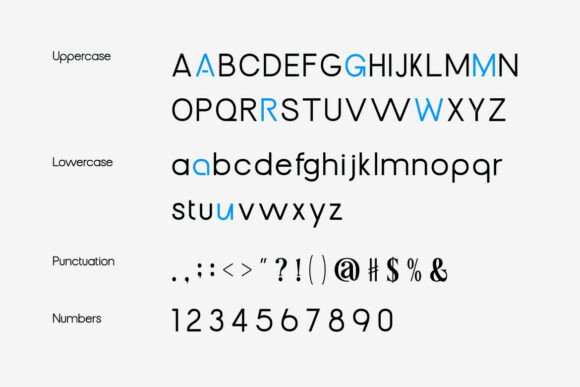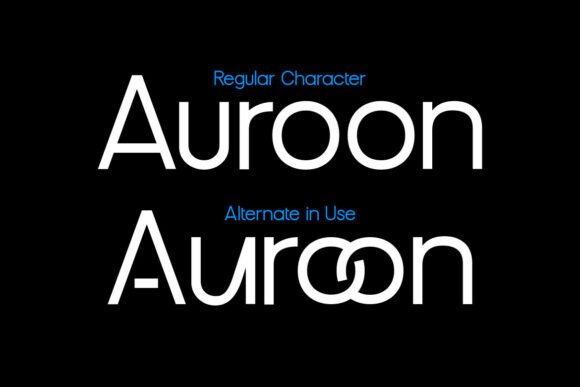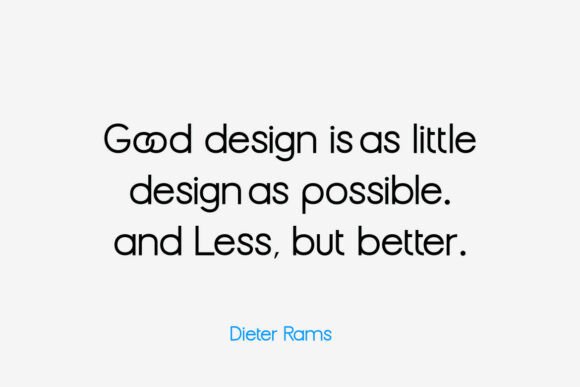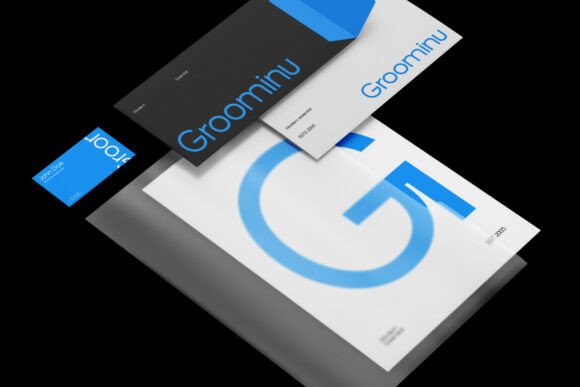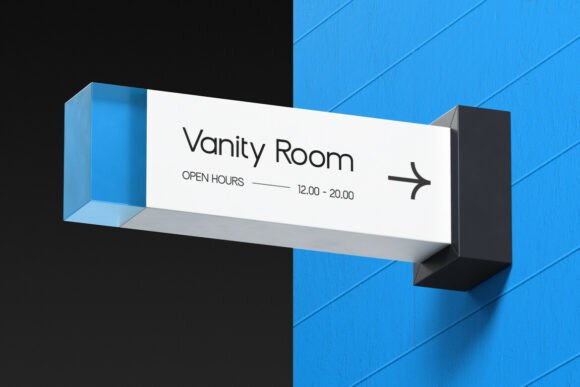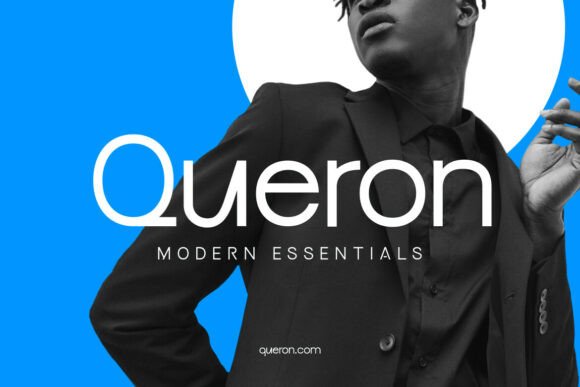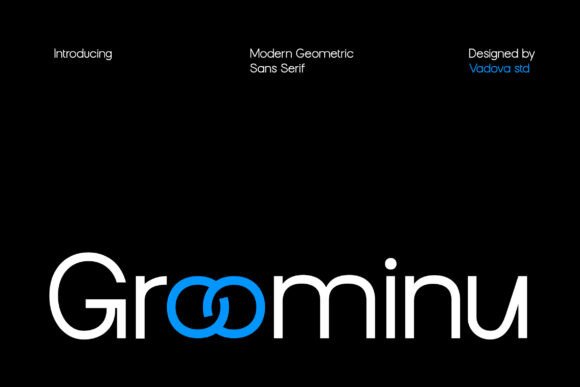
Introducing Groominu Font: The Epitome of Modern Design
In the realm of typography, a font can make or break the visual identity of a brand. For creatives and designers seeking a modern aesthetic that’s both sleek and sophisticated, Groominu Font emerges as a game-changer. This clean, minimal geometric sans serif typeface is meticulously designed with bold precision and a subtle character play, making it an ideal choice for branding, digital design, fashion, and tech-forward identities.
Design Philosophy and Features
Groominu is not just another font; it’s a design statement. Its core philosophy revolves around simplicity, legibility, and a dash of uniqueness. The font features:
- Clean and Minimal Design: Groominu boasts a geometric sans serif design that exudes cleanliness and sophistication.
- Bold Precision and Subtle Character Play: The font strikes a perfect balance between precision and playfulness, making it versatile for various design applications.
- Unique Custom Ligatures: Adding a touch of personality, Groominu includes custom ligatures that enhance its distinctiveness.
- Rounded Balance: The rounded elements in Groominu provide a soft contrast to its geometric structure, contributing to its modern appeal.
- Comprehensive Character Set: It includes uppercase and lowercase characters, numbers, and punctuation, ensuring versatility for a wide range of design projects.
Applications of Groominu Font
Groominu’s design characteristics make it exceptionally suited for:
- Branding: Establish a strong brand identity with a font that communicates modernity and sophistication.
- Digital Design: Its clean lines and geometric form make it perfect for digital platforms, from websites to mobile apps.
- Fashion: For fashion brands and designers looking for a font that speaks of elegance and contemporary style.
- Tech-forward Identities: Ideal for tech startups and companies that want to convey innovation and forward-thinking.
Why Choose Groominu?
Choosing Groominu Font for your design projects comes with several advantages:
- High Readability: Despite its modern and minimalist design, Groominu offers excellent readability, making it suitable for body text and headlines alike.
- Distinct Personality: In a sea of sans serif fonts, Groominu stands out with its unique ligatures and rounded elements, giving your designs a distinctive look.
- Versatility: Its comprehensive character set and design flexibility make it adaptable to various design contexts.
Groominu Font is a powerful tool for designers and creatives aiming to infuse their projects with a modern, sleek aesthetic. Its thoughtful design, combining geometric precision with subtle character play, makes it a versatile and distinctive typeface. Whether you’re working on branding, digital design, fashion, or tech-related projects, Groominu offers the perfect blend of readability, personality, and contemporary style. Elevate your designs with Groominu, and make a statement with typography that stands out.
Groominu Font is more than just a typeface; it’s a design companion that can elevate your creative projects to new heights. With its unique blend of modernity, readability, and personality, Groominu is poised to become a staple in the toolkit of designers worldwide.